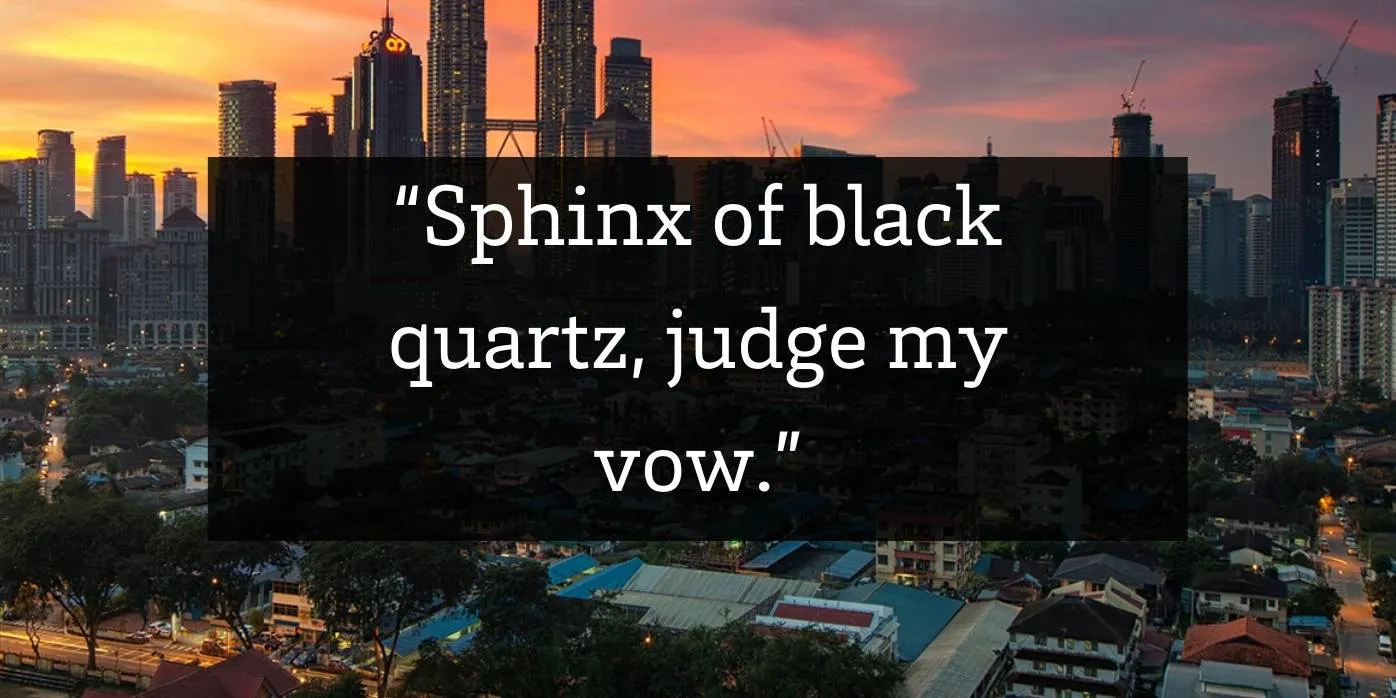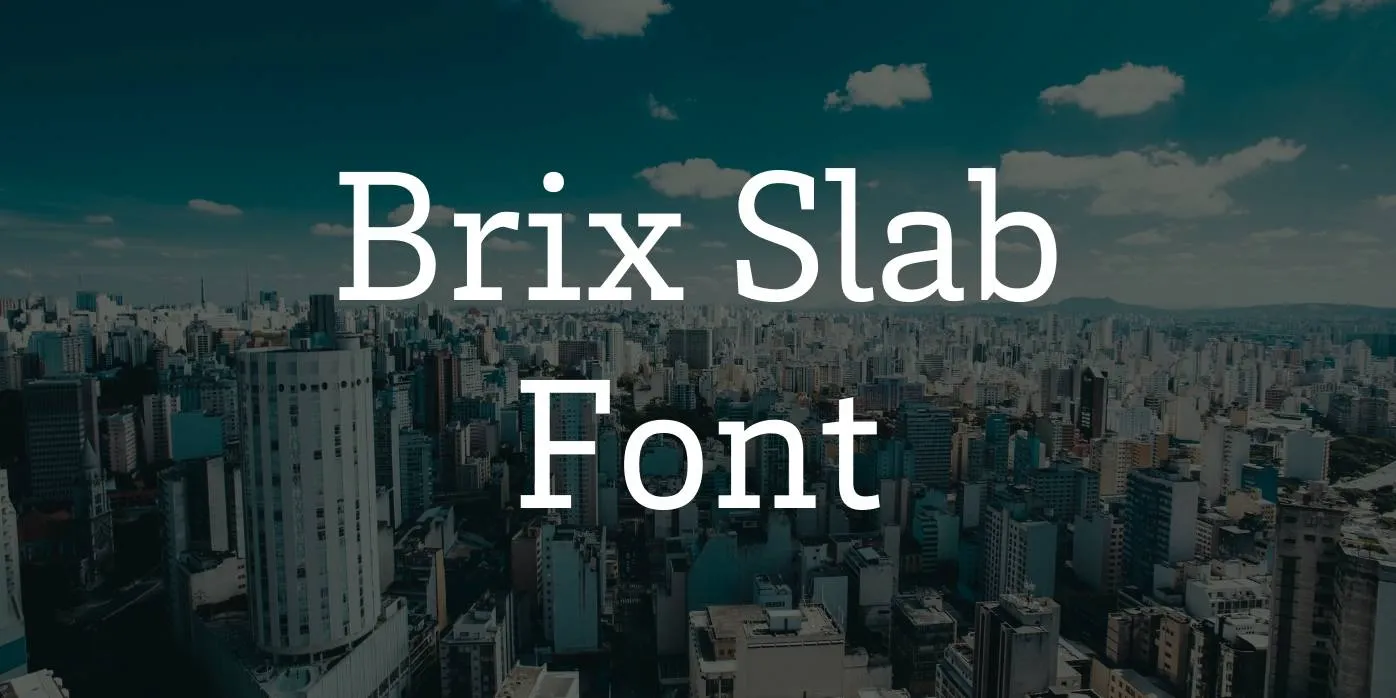
Brix Slab Font
In this post, we are going to introduce a new stylish typeface named Brix Slab Font. This tremendous typeface was designed by two elegant and well-known designers Livius F. Dietzel & Hannes von Döhren. It belongs to the Slab Serif category.
This tremendous typeface includes 12 special weights. This new and amazing font have contained only uppercase and lowercase letters along with some punctuation marks. Each letter has been designed carefully with full attention. You will surely get an endless number of design ideas after using them in your regular projects.